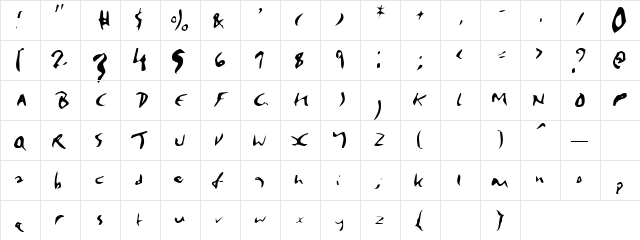
LastRevision Regular
Design Context for LastRevision Typeface
LastRevision is a composed and adaptable typeface that performs quietly and consistently across a wide range of design contexts.